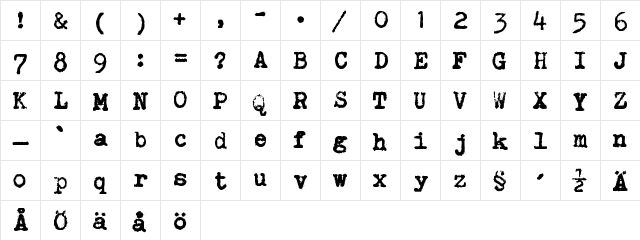
Brother Deluxe 1350 Font Regular
| Foundry | Mr.Fisk (MikeLarsson) |
| Designer | Mr.Fisk (MikeLarsson) |
Design Context for Brother Deluxe 1350 Font Typeface
Brother Deluxe 1350 Font takes a measured approach to typography — its balanced proportions and neutral character make it a reliable workhorse for both digital and print work.